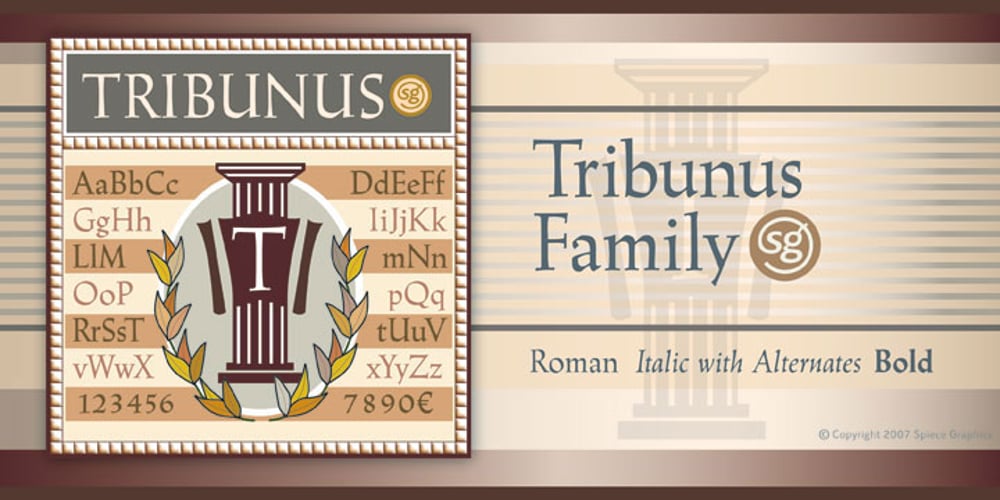
Tribunus SG Font Family was designed by Warren Chappell, Jim Spiece and published by Spiece Graphics. Tribunus SG contains 3 styles and family package options. Warren Chappell was the original designer of this handsome pen-formed roman typeface introduced by the Stempel Foundry in 1939. It was cast in Germany as Trajanus and named after the Roman emperor whose accomplishments are preserved on the Trajan Column in Rome. This version, Tribunus, retains the same rugged but handsome quality of the oldstyle original. A set of italic oldstyle figures are included with the italic roman. Tribunus is also available in the OpenType Std format. Some new characters have been added to this OpenType version. Advanced features currently work in Adobe Creative Suite InDesign, Creative Suite Illustrator, and Quark XPress 7. Check for OpenType advanced feature support in other applications as it gradually becomes available with upgrades.